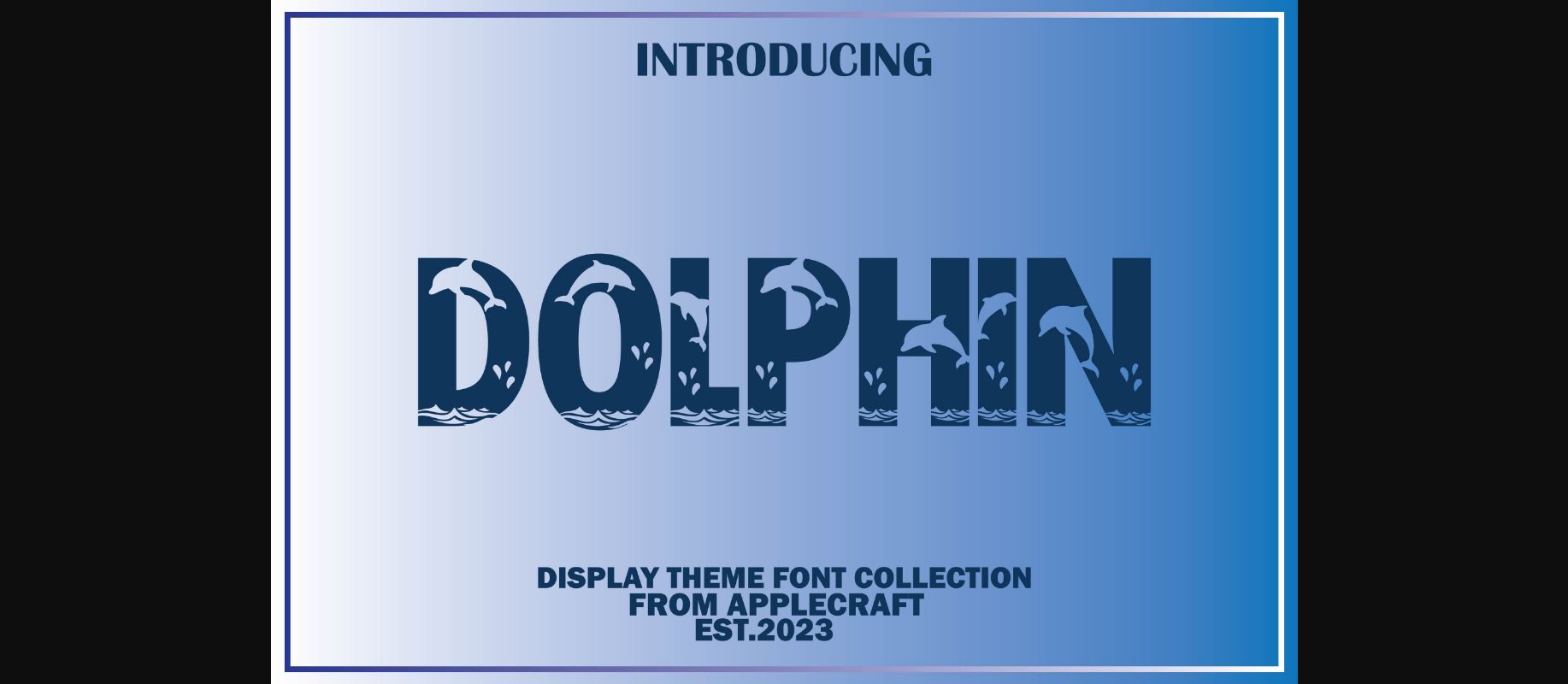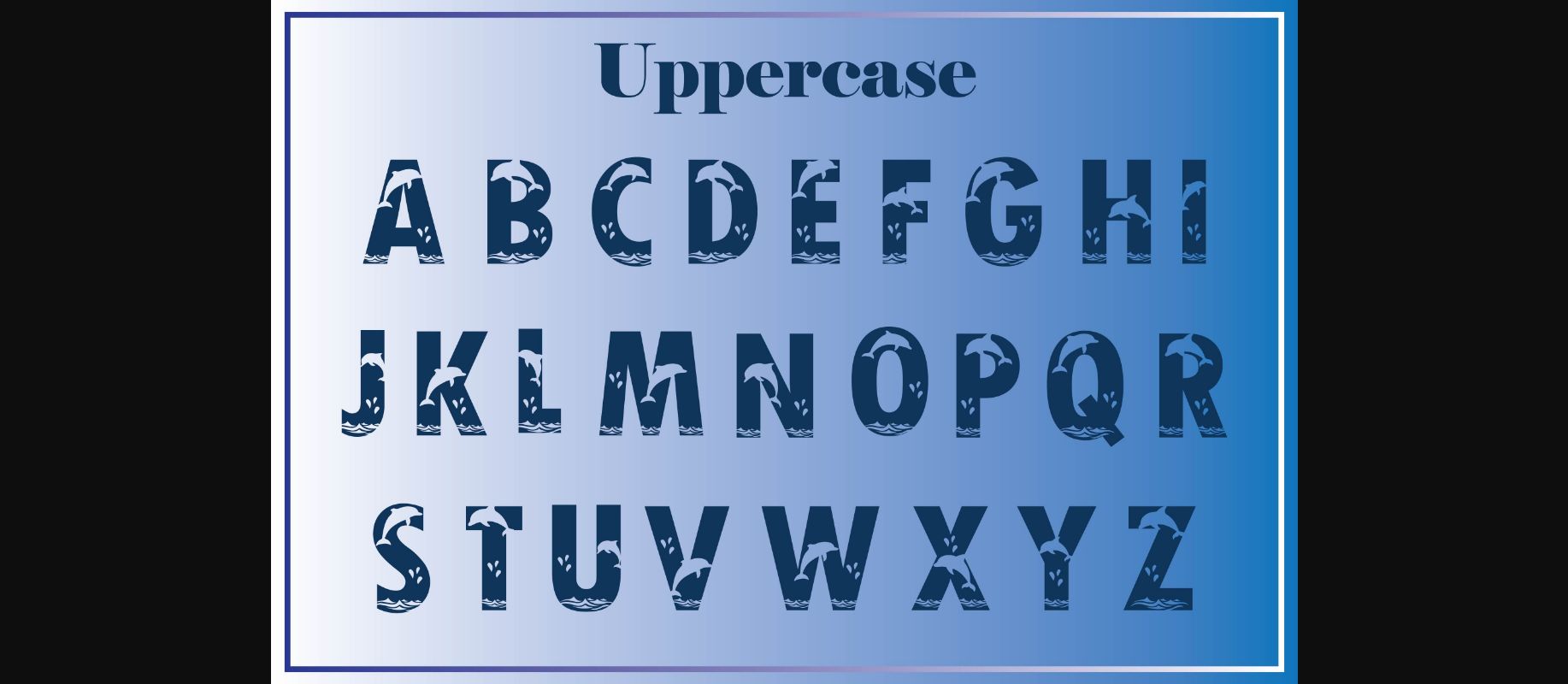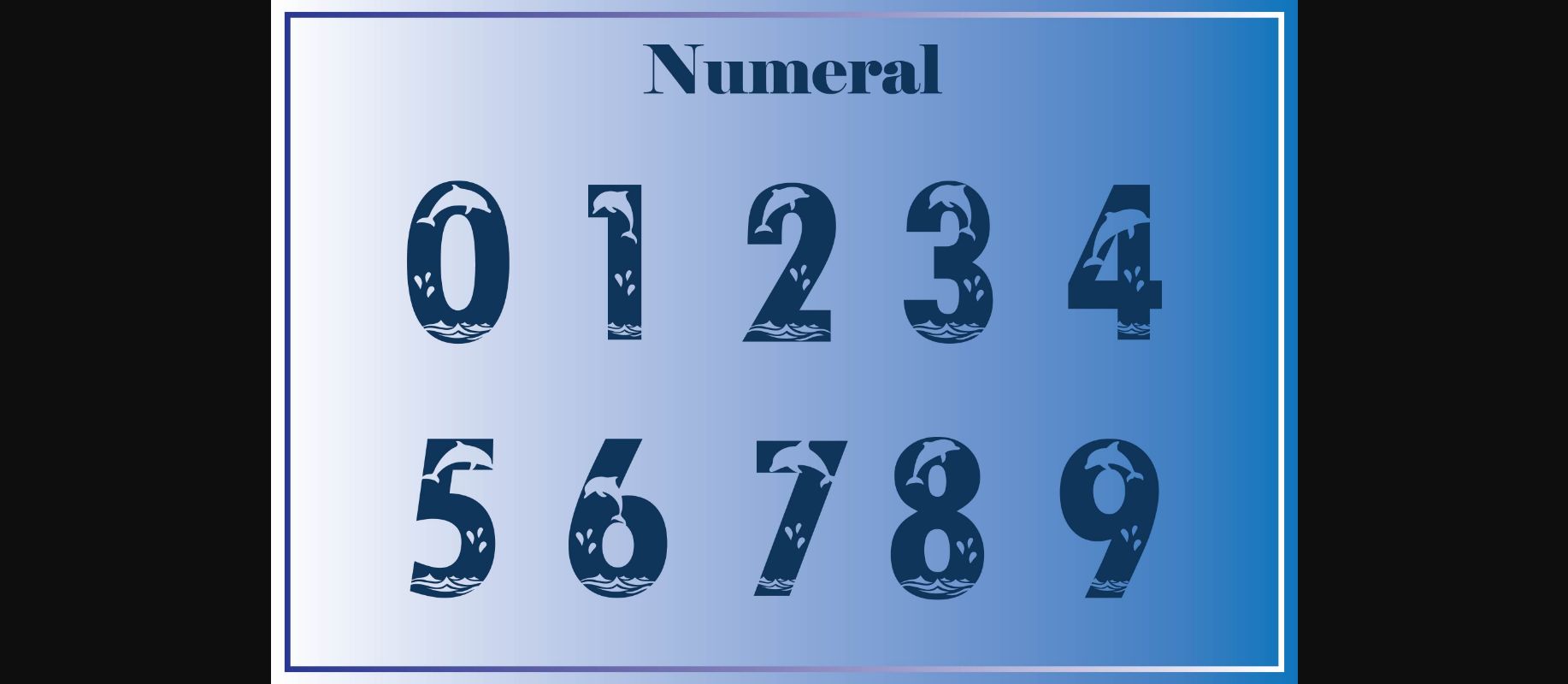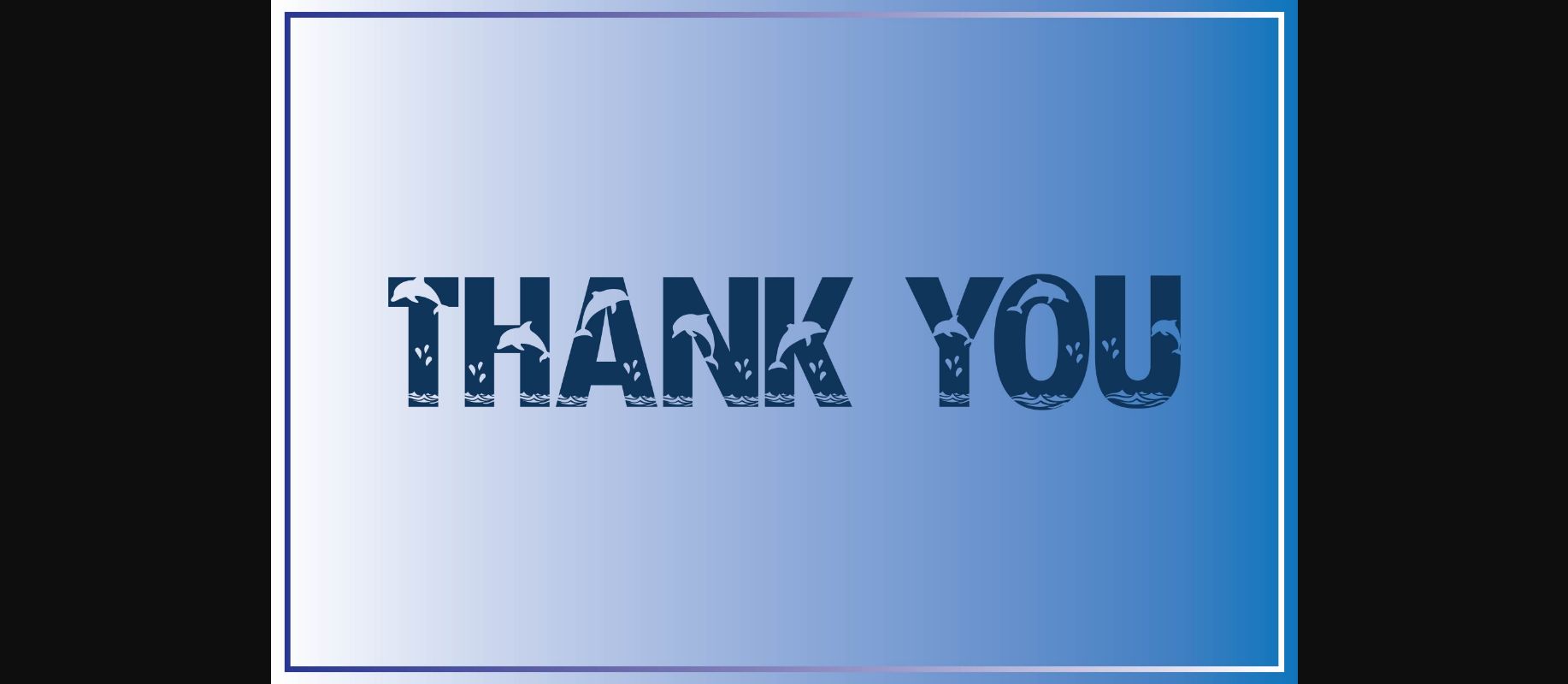
HomeDecorative FontsDolphin Font Decorative Fonts Dolphin Font FacebookXPinterestWhatsApp 1 of 6 ... Dolphin Font Poster 2... Dolphin Font Poster 3... Dolphin Font Poster 4... Dolphin Font Poster 5... Dolphin Font Poster 6... About Dolphin Font Dolphin is a fun, thick lettered, and incredibly unique decorative font. It can be used for a large variety of projects and it will definitely brighten up your crafty ideas. DOWNLOAD NOW People also explored Hair Style Font Frenchio Font Boldita School Font Coristya Font Quotes Trio Font Fall Story Font Wonderful Font Jhonatan Font Magic Halloween Font 392 0 TagsDolphinDolphin Font Previous articleIn Love FontNext articleChristmas Gnome Font LEAVE A REPLY Cancel reply Comment: Please enter your comment! Name:* Please enter your name here Email:* You have entered an incorrect email address! Please enter your email address here Website: Save my name, email, and website in this browser for the next time I comment. Personal Use Free Shelly Personal Use Free Read more about this font Wildwest Personal Use Free Read more about this font Gagalin Personal Use Free Read more about this font Rogueland Personal Use Free Read more about this font BLOG Fonts That Capture the Spirit of New York City New York City is more than just a place—it’s an experience, a rhythm, a visual language... Free vs Paid Fonts: Why Investing in Premium Fonts Is Worth It How to Cut Any Font on Cricut: Convert a Font to SVG (Free) 5 Fonts That Will Dominate Design Trends in 2026